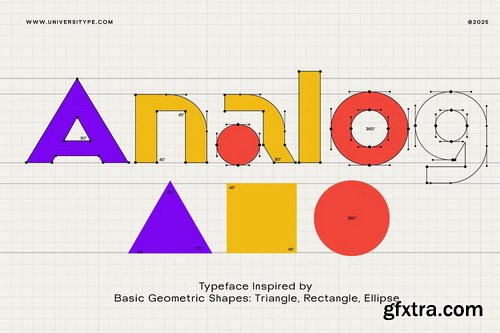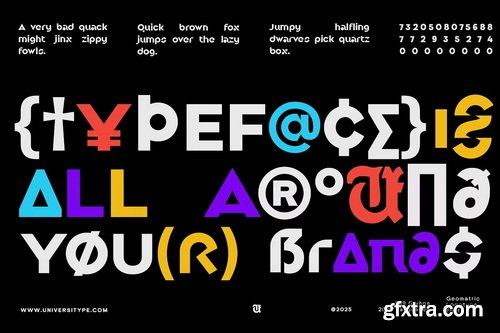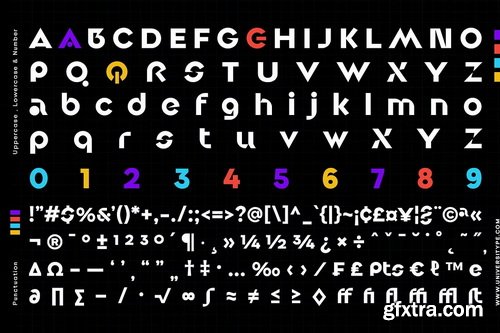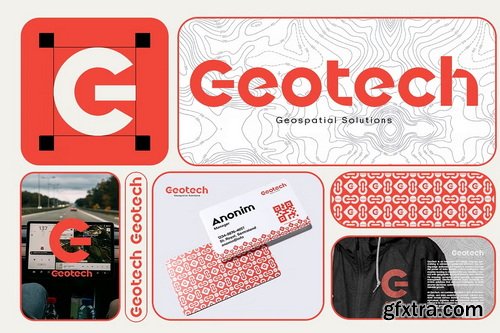
Introducing UT Gixora Metric, a revolutionary geometric logotype font that brings a fresh and modern twist to your design projects. Crafted with precision and creativity, UT Gixora Metric is perfect for brands looking to make a bold statement and stand out in a crowded market. This font combines geometric elegance with a unique style, making it an ideal choice for a wide range of design applications.